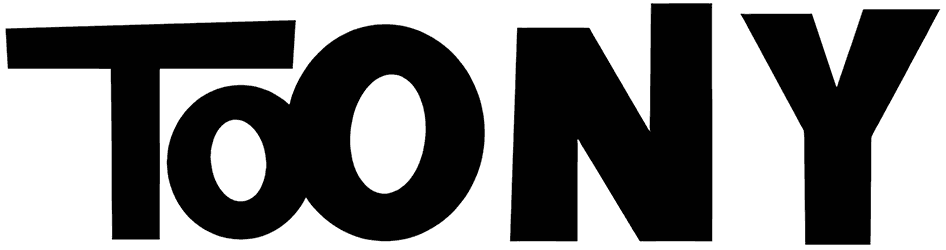
Toony Font
Designed byLyonsType
If you take a quick glance at Toony, it feels like a normal thick font, but noooo! It’s not the whole story at all. Take another good look at the character map, and you’ll see why it’s categorized as a playful cartoon font on RB.
They have made some subtle changes in the standard style of each letter so that they can no longer be taken seriously. Instead, Toony will be such a great match for toys, food, and similar products.
Originally designed by Tim Goldman. Lowercases, numbers, punctuation and contextual alternates included.